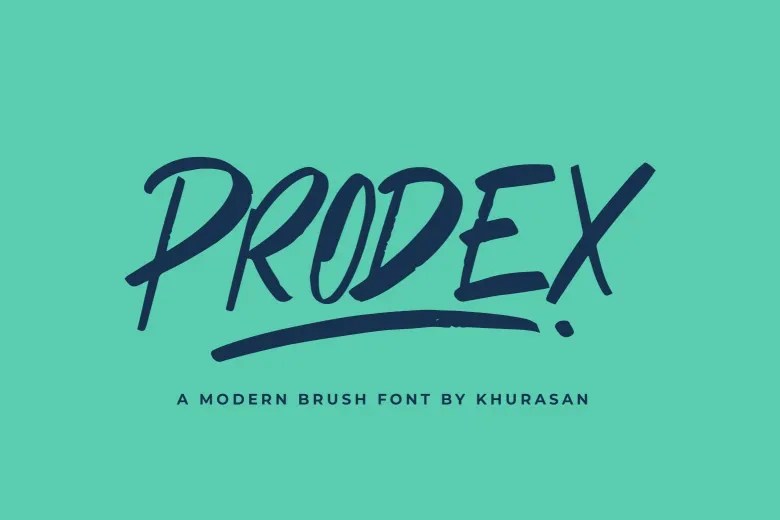
Prodex Font
Prodex is a dynamic brush typeface designed to make a bold statement in any creative project. Its modern, handcrafted strokes bring energy and personality, making it perfect for logos, posters, book covers, banners, and magazine layouts. With its expressive handwritten style, Prodex adds a natural and artistic touch, elevating designs with effortless flair.
This versatile script font seamlessly adapts to various design themes, from edgy branding to stylish editorial compositions. Whether used for eye-catching headlines or creative typography, Prodex ensures a distinctive and professional look.